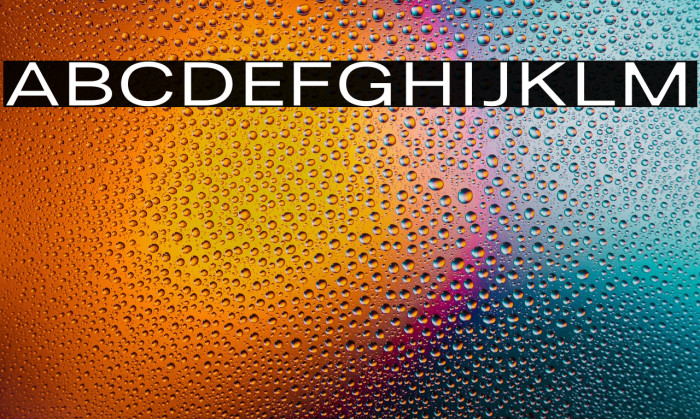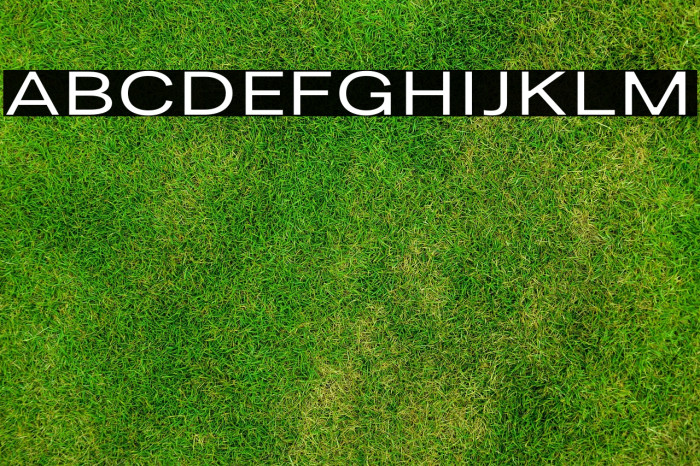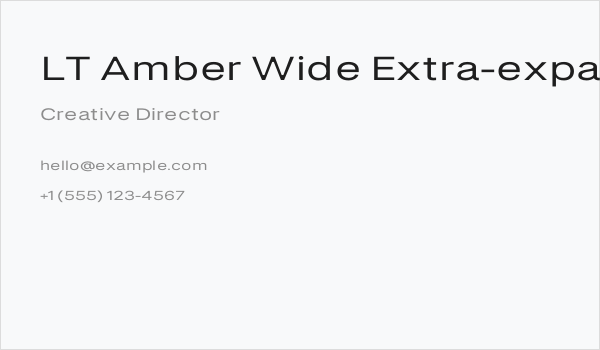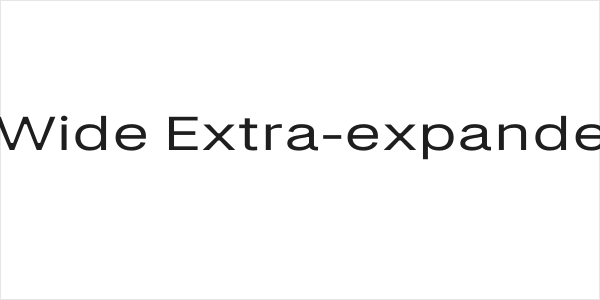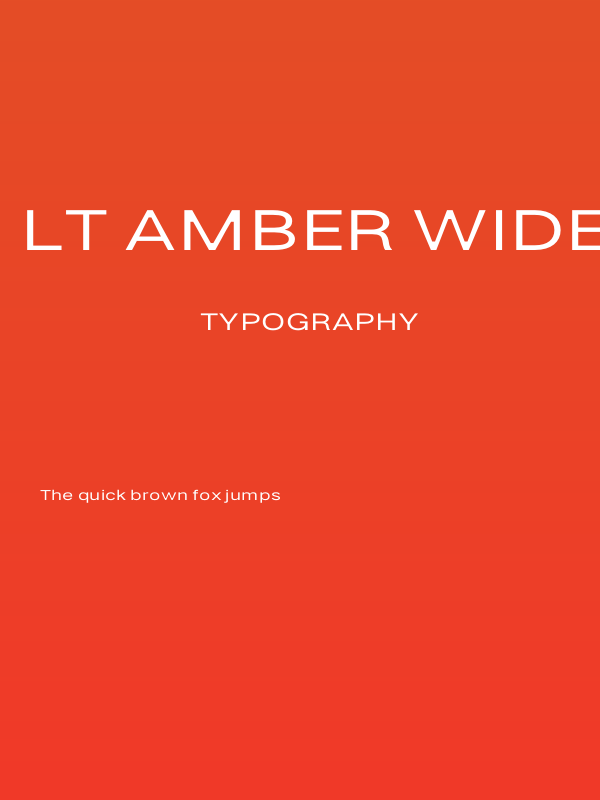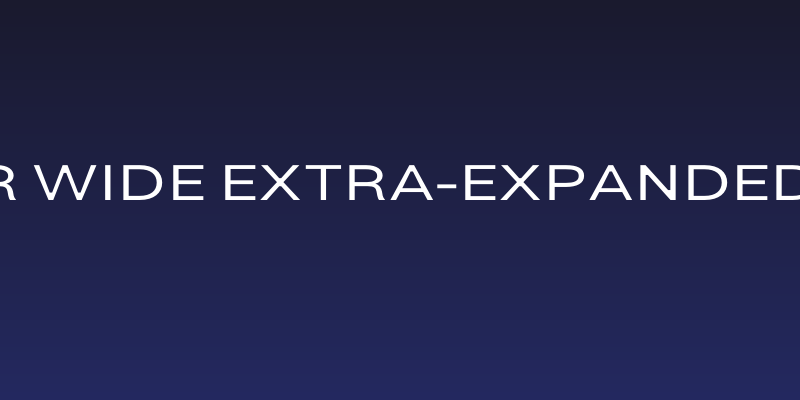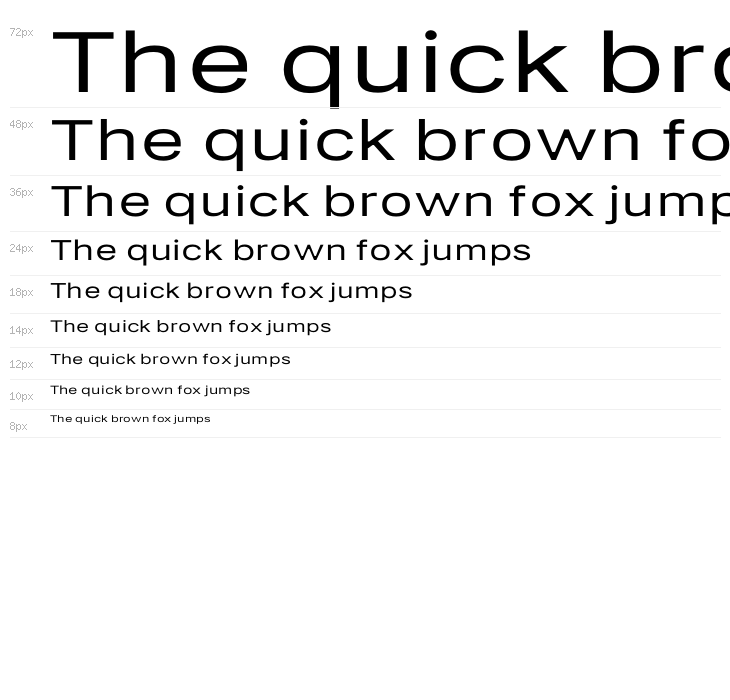
LT Amber Wide Extra-expanded Medium Font
LT Amber Wide Extra-expanded Medium Description
This font features a clean and modern sans-serif design with a wide and extra-expanded appearance. The characters are evenly spaced, providing a balanced and harmonious look. The uppercase letters are bold and assertive, while the lowercase letters maintain a consistent style with smooth curves and straight lines. The numbers are clear and legible, making them suitable for various applications. Special characters are well-defined, adding versatility to the font. Overall, it offers a professional and contemporary aesthetic, ideal for projects that require a strong visual impact.
Use CaseHeadlines, Logos, Advertising
Proposed ProjectsIdeal for branding, advertising, headlines, and digital media where a bold and modern appearance is desired.